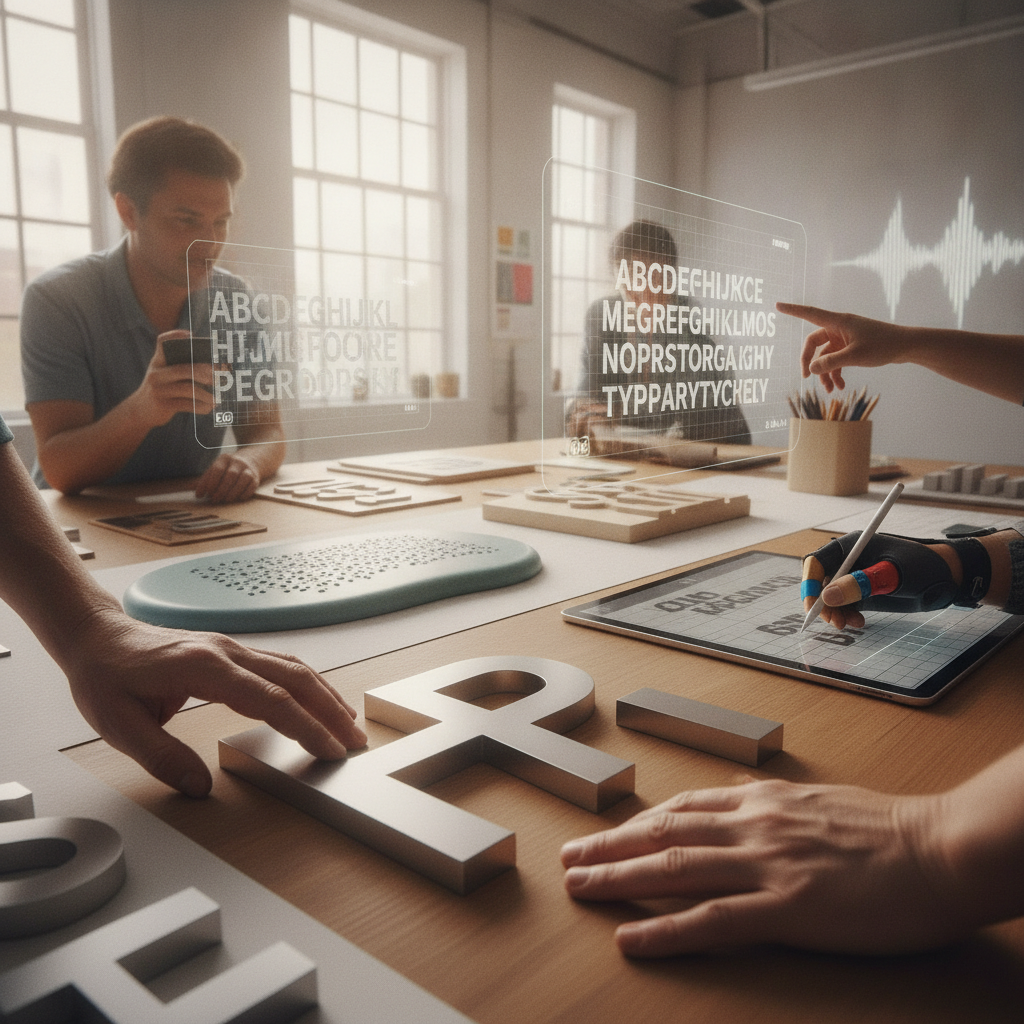
Accessibility in Typography: Designing Type for All Abilities
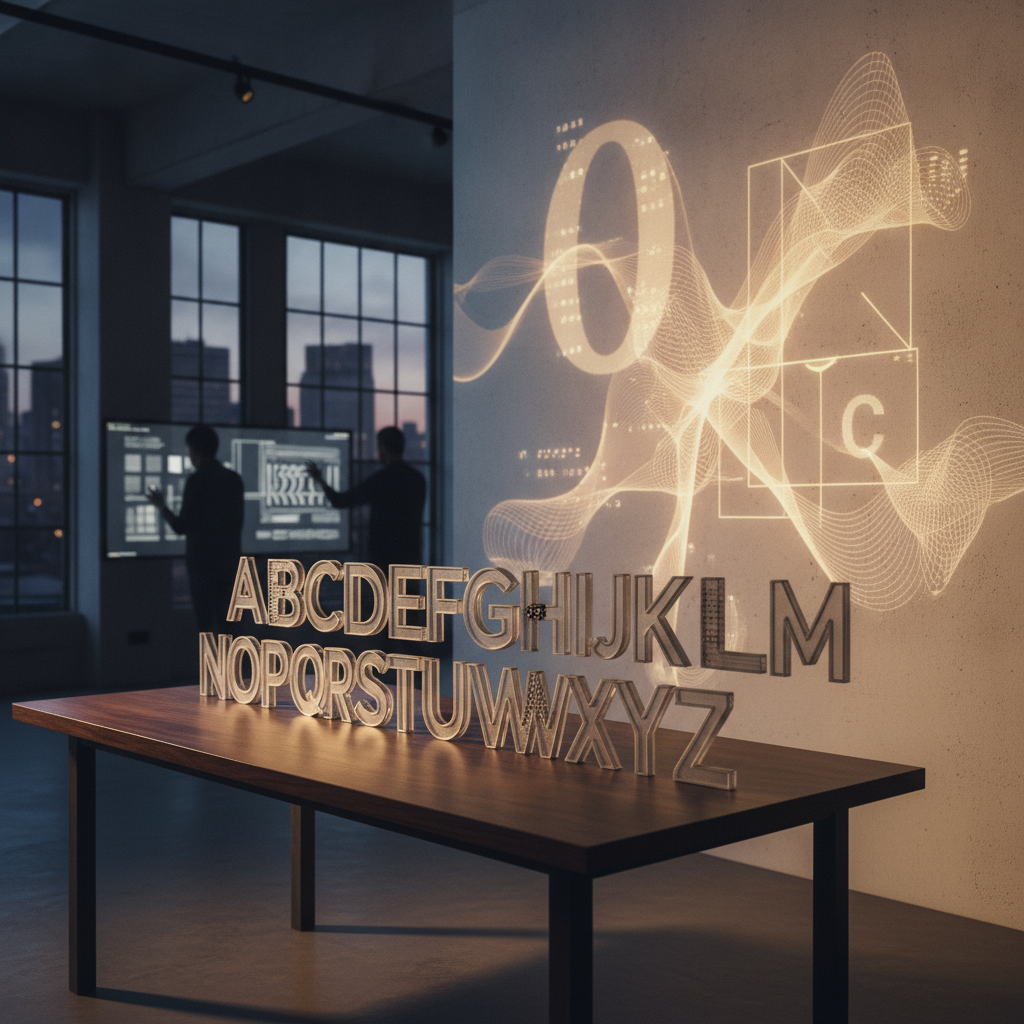
Understanding the Importance of Accessible Typography
Typography plays a crucial role in communication, serving not just to convey information but also to enhance readability and user experience. In a world that increasingly prioritizes inclusivity, it is essential to consider how typography can be designed to accommodate individuals with diverse abilities. Accessibility in typography ensures that everyone, regardless of their visual or cognitive abilities, can engage with text effectively.
Key Principles of Accessible Typography
1. Contrast and Color: One of the fundamental aspects of accessible typography is ensuring sufficient contrast between the text and its background. A high contrast ratio helps individuals with visual impairments to read text more easily. Additionally, relying solely on color to convey information can be problematic; alternative cues should be included for those with color blindness.
2. Font Choice: The choice of font significantly impacts readability. Sans-serif fonts, like Arial or Helvetica, are often preferred for digital content because they are cleaner and easier to read on screens. However, it's essential to avoid overly stylized or decorative fonts that can hinder comprehension.
3. Size and Spacing: Proper font size and spacing are vital for accessibility. Text should be large enough to be legible, and appropriate line spacing can prevent text from feeling cramped. A good rule of thumb is to use at least 1.5 line height for body text to enhance readability.
Implementing Accessibility in Design
Designers must keep accessibility in mind from the outset of their projects. Collaborating with individuals who have varying abilities can provide valuable insights into their needs. Furthermore, testing designs with assistive technologies, such as screen readers, ensures that the typography functions as intended for all users.
“Designing for accessibility is not just about compliance; it’s about creating a better experience for everyone.”
Conclusion
By prioritizing accessibility in typography, designers can create inclusive content that reaches a wider audience. Through thoughtful choices in contrast, font selection, and spacing, we can ensure that our text is not only beautiful but also accessible to all. In a world where communication is key, every word should be designed with everyone in mind.